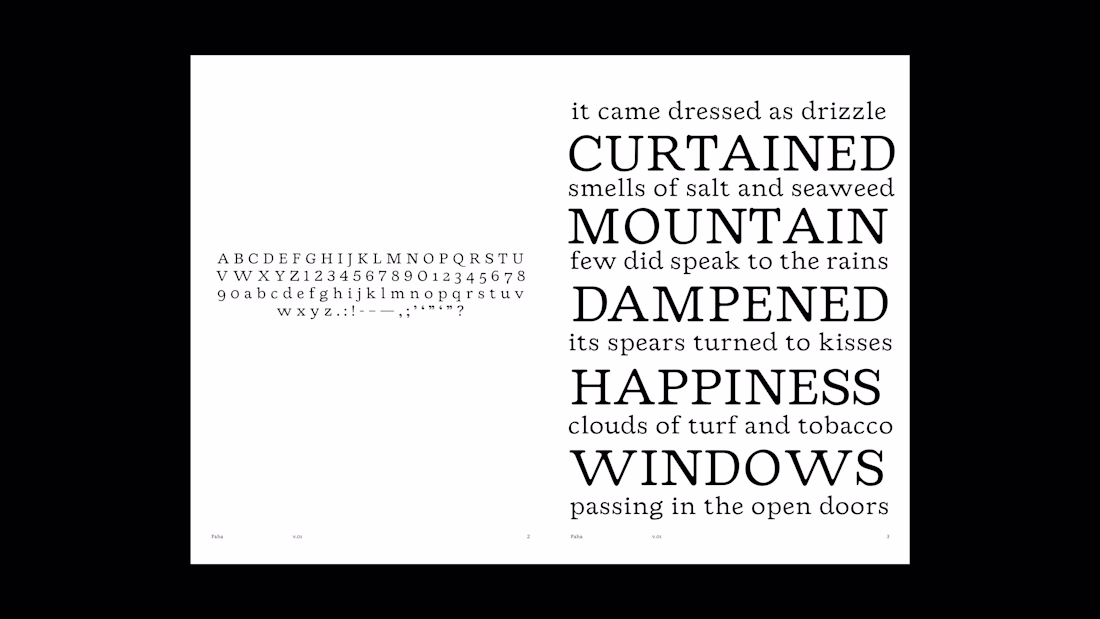
In-progress typeface design based on Cooper Black and a version of a Goudy typeface found in a type specimen in the John Updike Collection at the Providence Public Library.